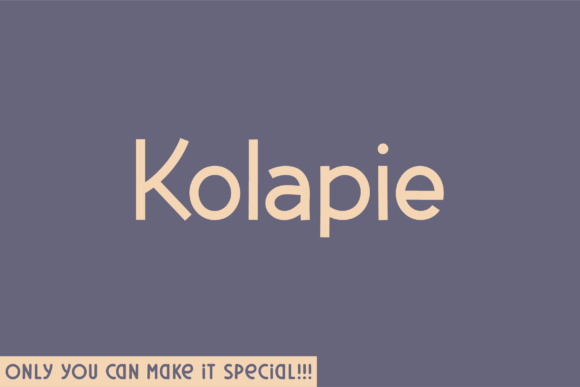
Introducing Kolapie Font - The Epitome of Elegance and Modernity
Embark on a typographic journey like no other with Kolapie Font, the sans serif masterpiece created by the visionary Hanna Bie. This font family exudes sophistication and minimalism, elevating your designs to new heights of visual appeal.
Kolapie Font is more than just a collection of letters and symbols; it's an expression of creativity, a tool to unlock your imagination. With its clean lines, delicate curves, and versatile personality, Kolapie Font seamlessly adapts to any design project.
Whether you're crafting book covers that captivate, designing magazines that inspire, or creating social media posts that engage, Kolapie Font is your ultimate companion. Its versatility extends to invitations, branding projects, and endless other possibilities, limited only by your imagination.
Experience the joy of effortless design with Kolapie Font. Its minimalist aesthetic effortlessly enhances any project, allowing your content to shine. Say goodbye to cluttered, distracting fonts and embrace Kolapie's clean, modern vibe that puts your message front and center.
Kolapie Font is the perfect choice for those seeking a font that's both stylish and functional. Its sans serif design ensures readability and clarity, making it ideal for both print and digital media. The font's elegant curves add a touch of sophistication to any design, setting your projects apart from the ordinary.
Hanna Bie, the creative mind behind Kolapie Font, has poured her passion and expertise into crafting a font that's both beautiful and versatile. Its timeless design transcends trends, making it a lasting investment for your design arsenal.
Don't settle for ordinary fonts that blend into the background. Choose Kolapie Font, the font that commands attention, captivates audiences, and elevates your designs to new levels of excellence. Embrace the power of typography and experience the Kolapie difference today!